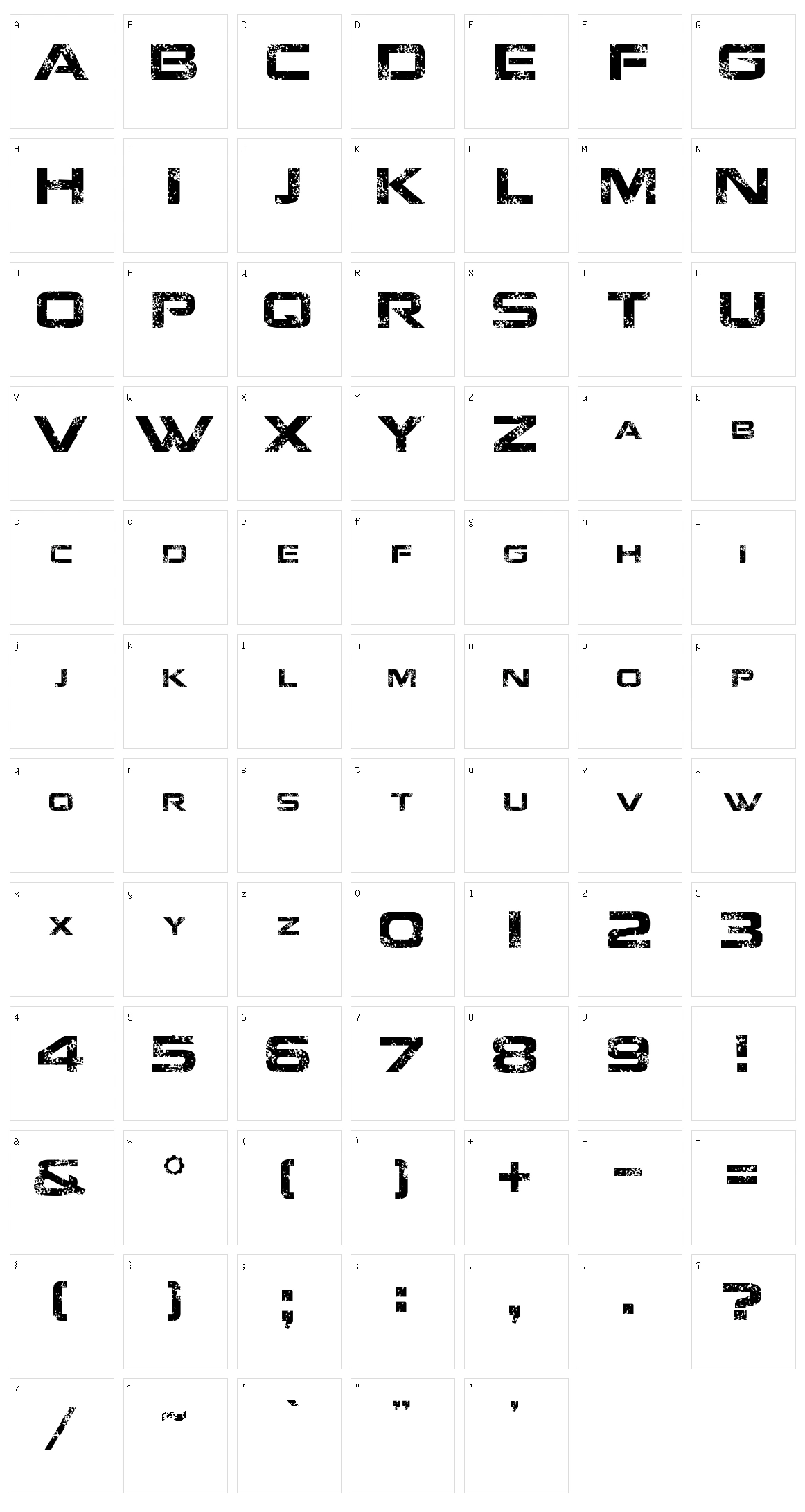
Jacinto Sans
Designed by: TracerTong Fontworks
Based on the Xbox 360 game 'Gears of War' titles.
- Gears Omen logo removed
- Slight amendments, cosmetic
- Slight clean up and fix on some kerning issues
- Now an OpenType font file
- Name Change: Now called Jacinto Sans in case of any
copyright issues with the 'Gears' name
- Added some new chars like ! () =-+
- Added european chars eg: å æ ç è é - Uppercase only
- Fixed the kerning on A W V Y T P F and a w v y t
- Slightly renamed with 'Emergence' added